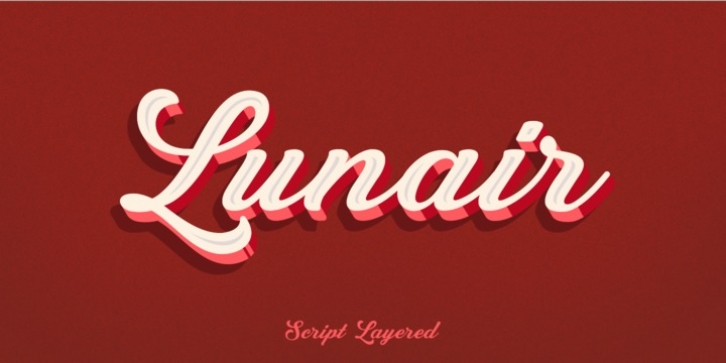
Lunair was designed by Cucu Supriyadi and published by Seventh Imperium. Lunair contains 6 styles and family package options.
Lunair is a display script layered font. Feature the modern script layered
The base layer is regular; add an extrude and extrude shadow to create a dimensional look.
the font styles can be mixed and matched together to create different style details.
are several fonts with a stand-alone script Base, Emboss And Inline,
· Lunair Base
· Lunair Inline
· Lunair Extrude
· Lunair Extrude Shadow
· Lunair Extrude Detail
· Lunair Emboss